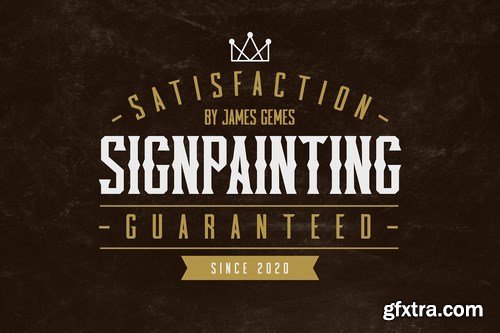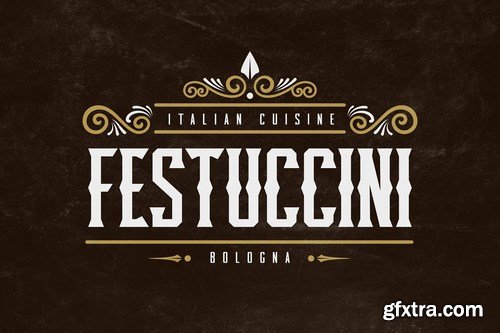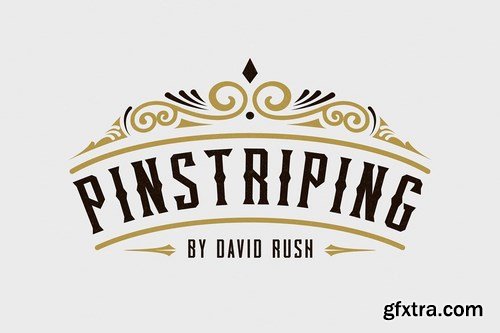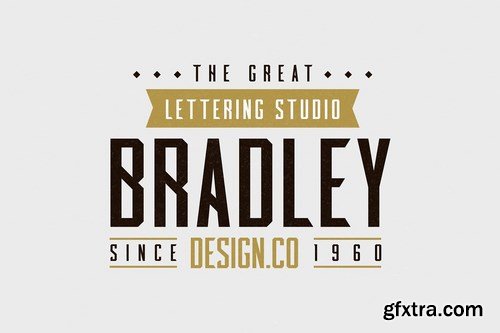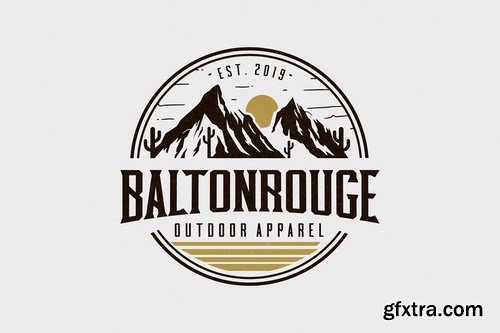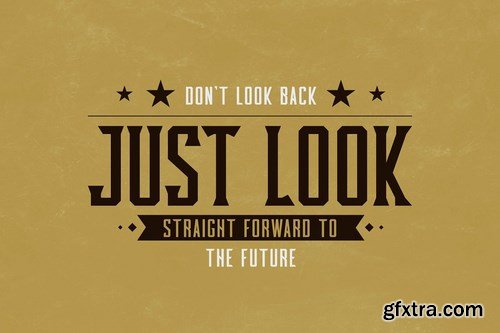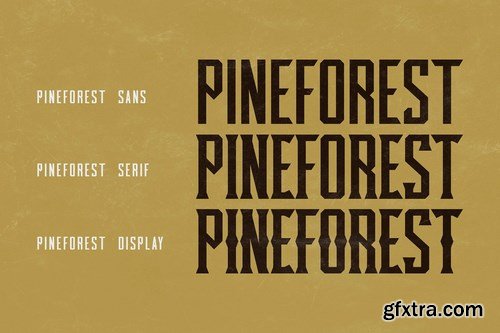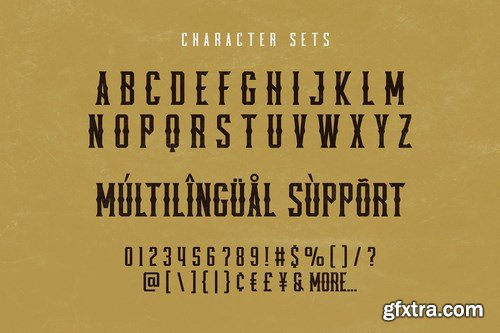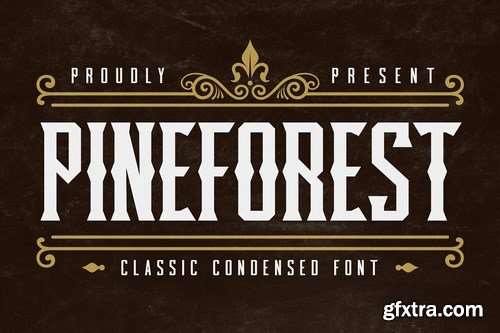
CM - Pineforest - Classic Condensed Font 4802341
Introducing our latest display typeface called Pineforest. A unique Fonts with vintage taste can make your lettering / logotype become more interesting.